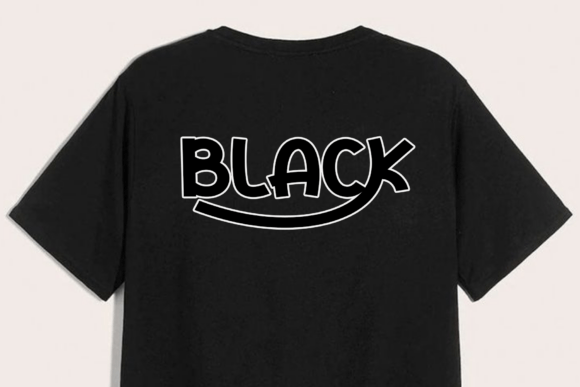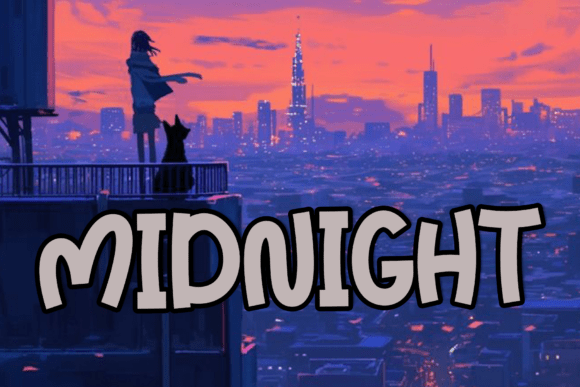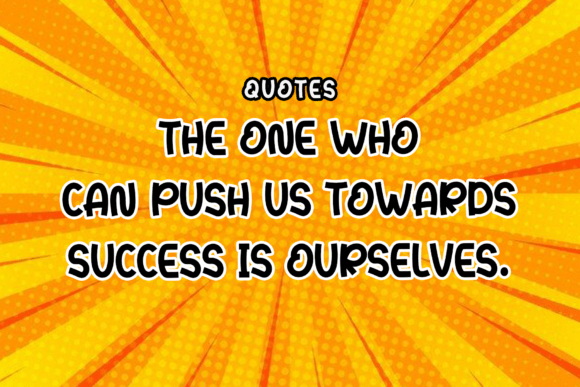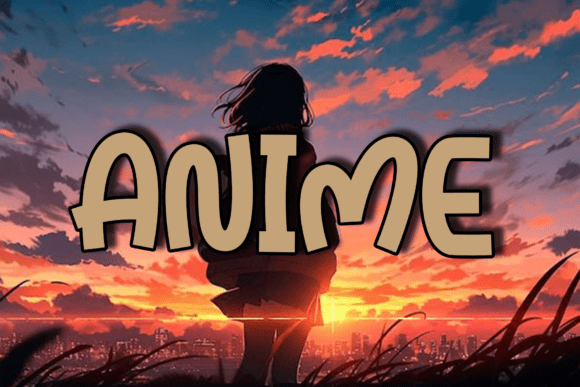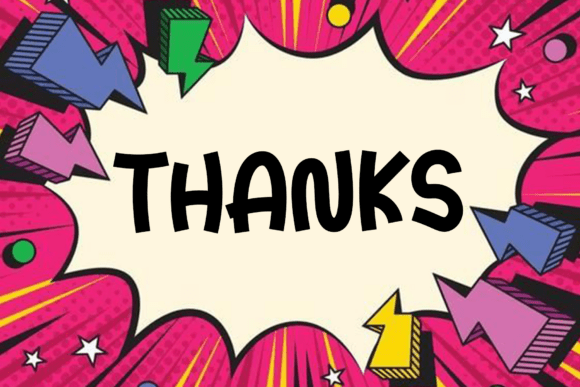
Unleash the Fun with Comic Book Font
Do you remember the thrill of scribbling with a favorite pen, watching the ink dance across the page in a joyful explosion of color and movement? For many creatives, this is the spark that sets their imagination ablaze. Whether it’s a sketchbook doodle or a hastily scrawled birthday card, the handwritten touch adds a personal, whimsical charm that’s impossible to replicate with digital tools.
Enter Comic Book Font, the perfect digital equivalent of that carefree, handwritten vibe. Designed to evoke the playful, celebratory feel of a comic book or party invitation, this font is all about capturing the fun and energy of a special moment. Whether you’re a designer looking to add a creative twist to your projects or a crafty enthusiast seeking to make a lasting impression, Comic Book Font is a valuable addition to your toolkit.
Comic Book Font Key Features
- Unique Characteristics: Comic Book Font is known for its playful, informal look and feel, with exaggerated letterforms and bold lines. It’s designed to evoke a sense of nostalgia and whimsy, making it a popular choice for comic books, cartoons, and children’s literature.
Comic Book Font Review
Overall, I’d say the Comic Book Font is a fun, playful choice for any project that needs a comic book-inspired look. ✨ One of its strengths is its wide range of styles and weights, making it easy to customize and use in various contexts.
The font also includes a variety of swashes, flourishes, and other decorative elements that can add a lot of visual interest to your design. ✨ These features are especially useful for creating titles, headings, and other text elements that need to stand out.
One of the main limitations of the Comic Book Font is its readability. ⚠️ At smaller font sizes, the font can become quite difficult to read, especially for longer blocks of text.
Another limitation is the font’s lack of support for non-Latin scripts. ⚠️ If you need to use the font for languages other than English, you may encounter issues.
While the Comic Book Font has its limitations, it’s still a great choice for designers who want to add a touch of comic book flair to their projects. With its wide range of styles and customizable features, it’s a versatile font that can be used in a variety of contexts.
- Wide range of styles and weights
- Decorative elements (swashes, flourishes, etc.)
- Customizable
- Playful, comic book-inspired look
Comic Book Font is ideal for creating a playful, cartoonish look in graphic design projects. Use it for comic book covers, children’s book illustrations, or even social media graphics. To get the most out of it, experiment with different font sizes, colors, and combinations with other fonts.